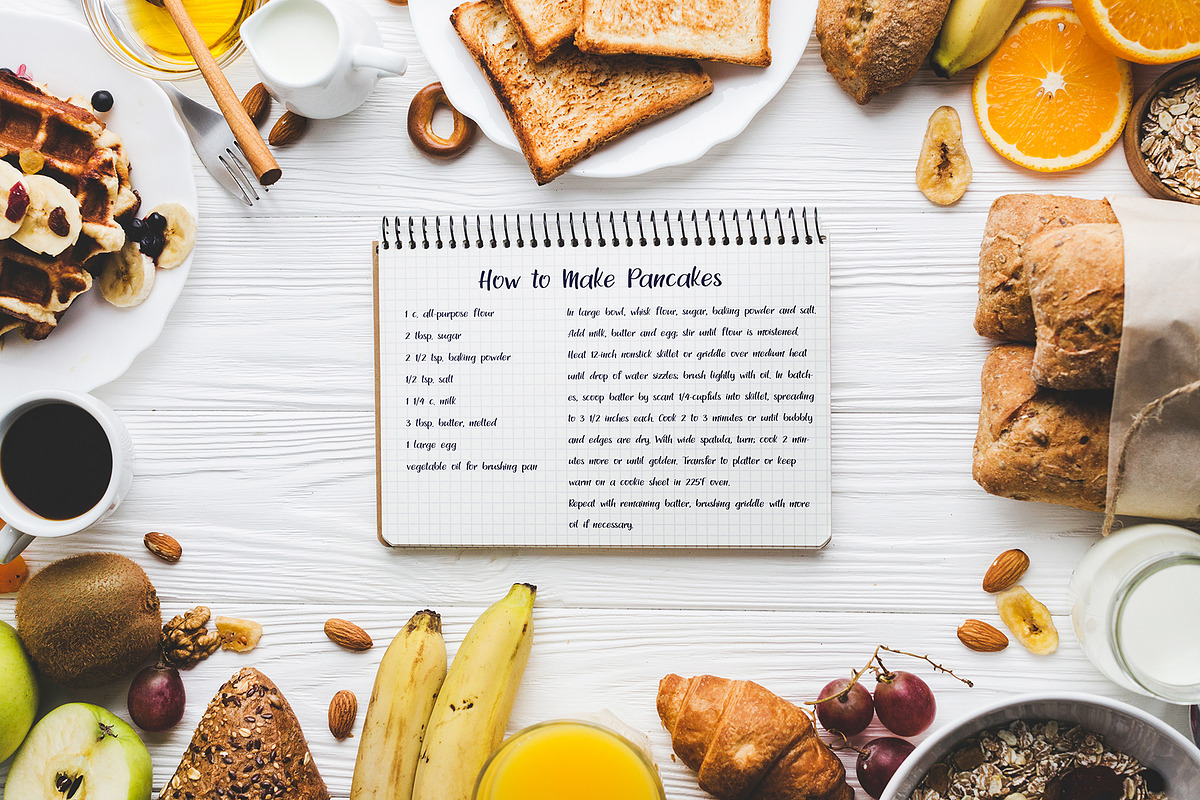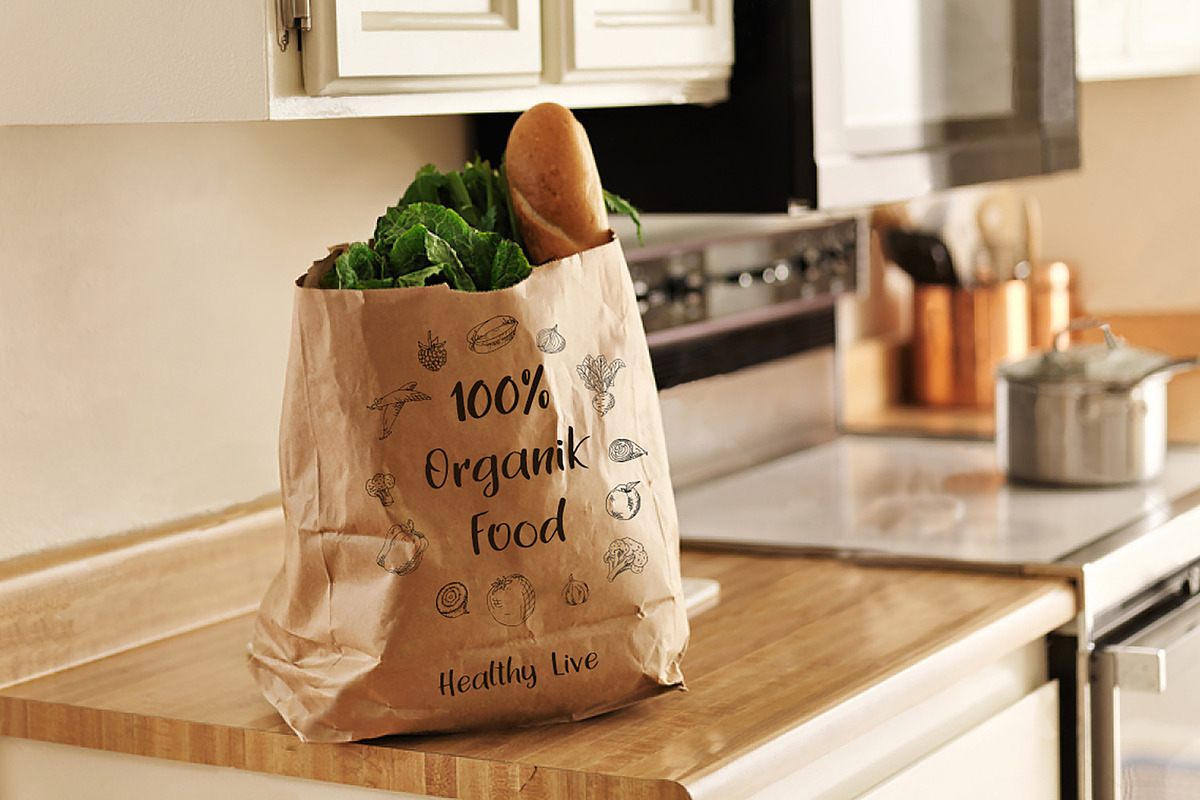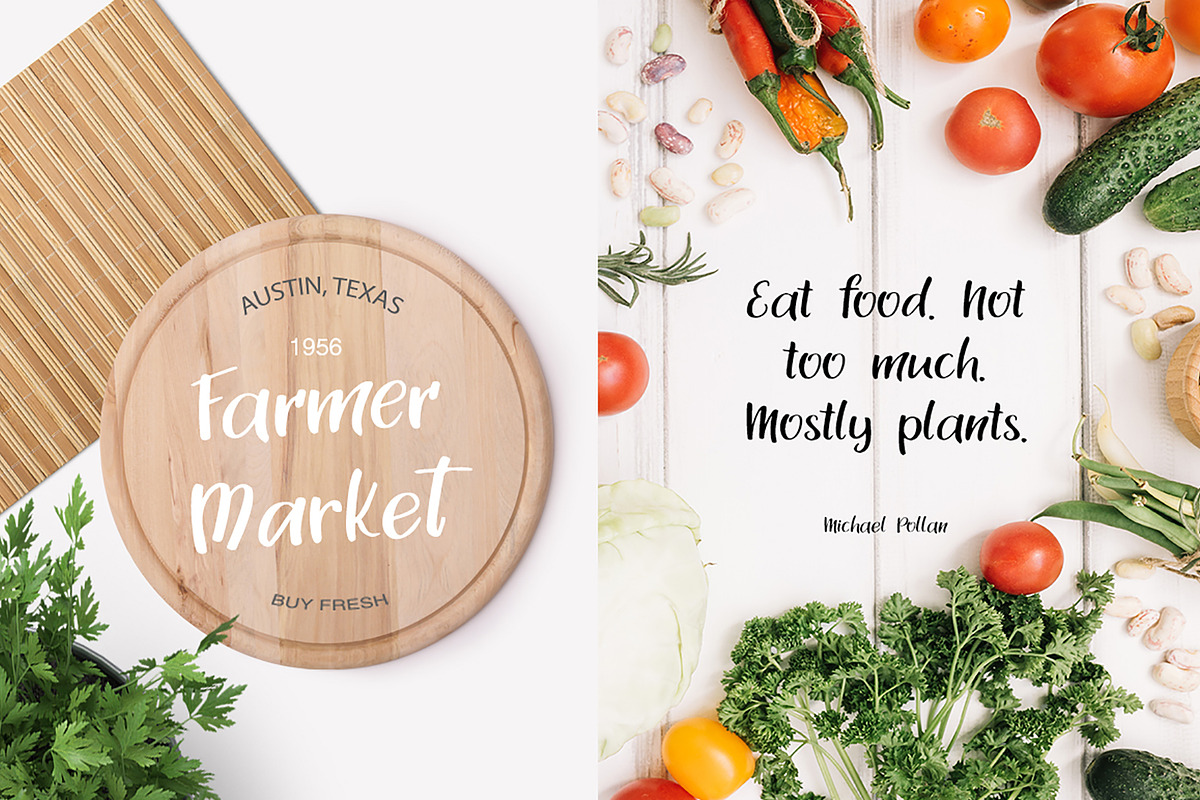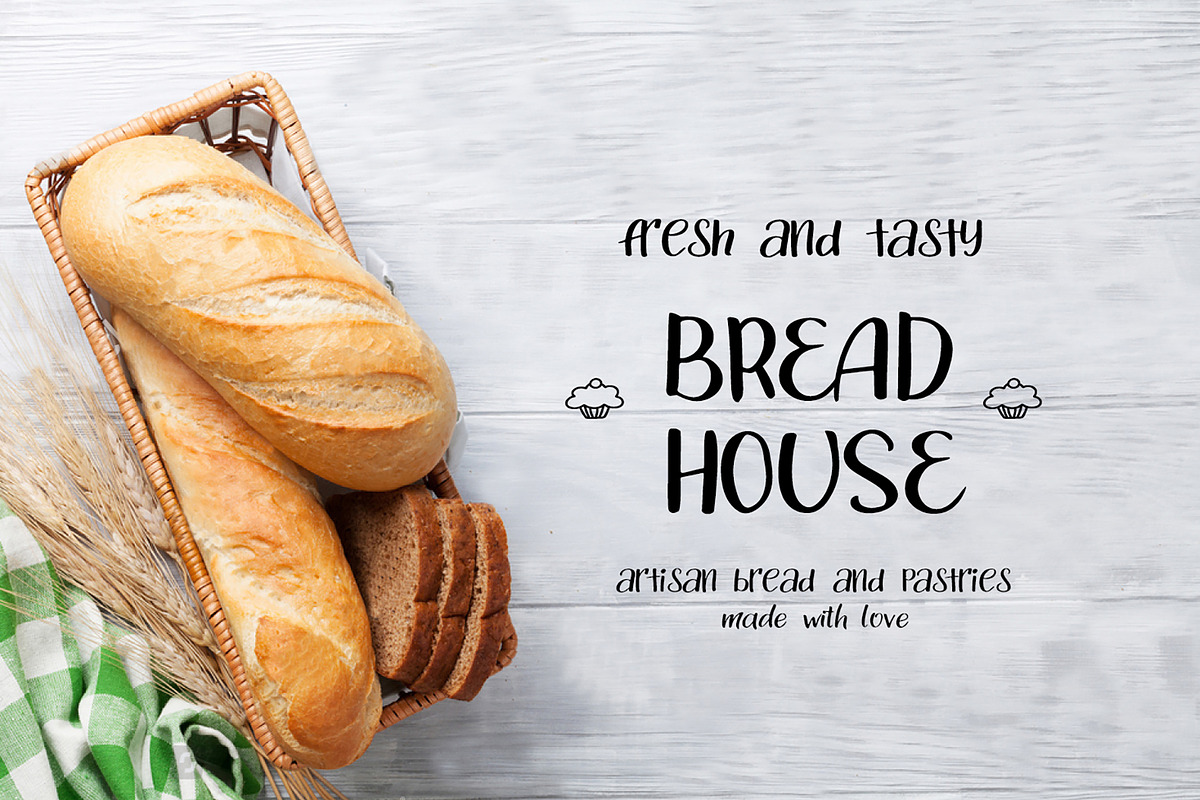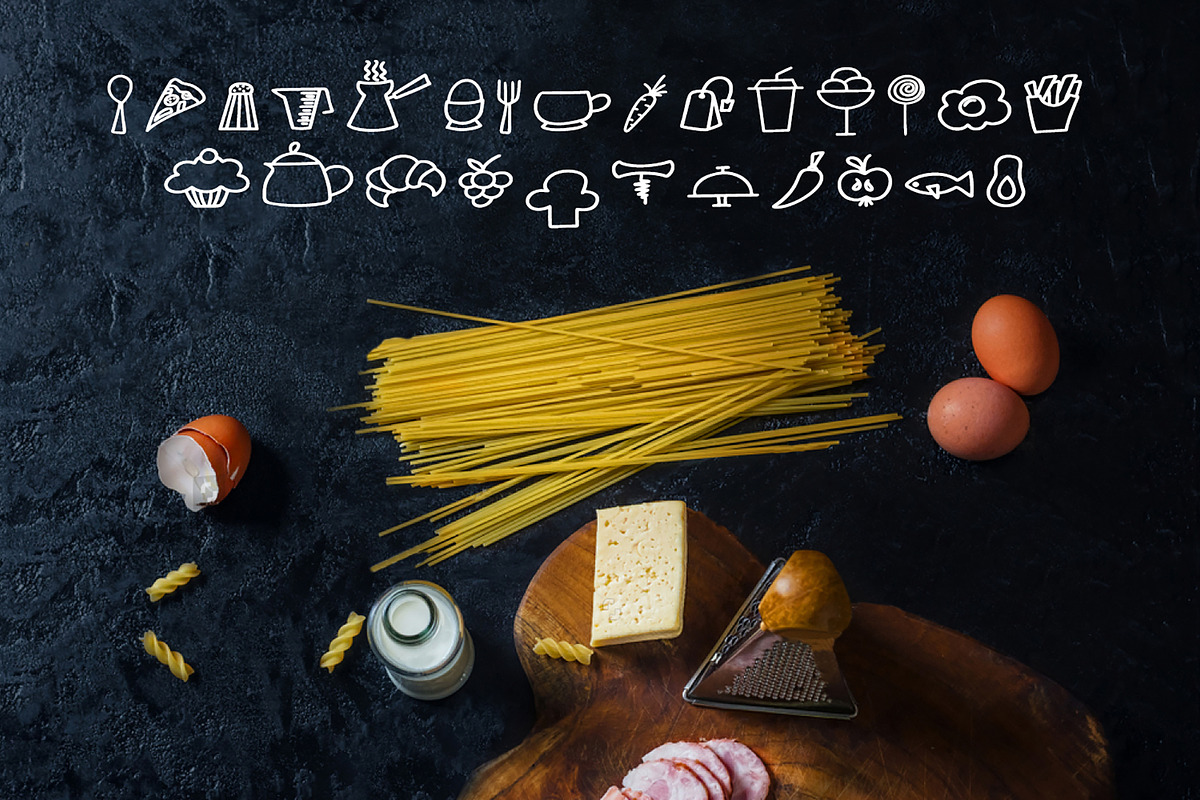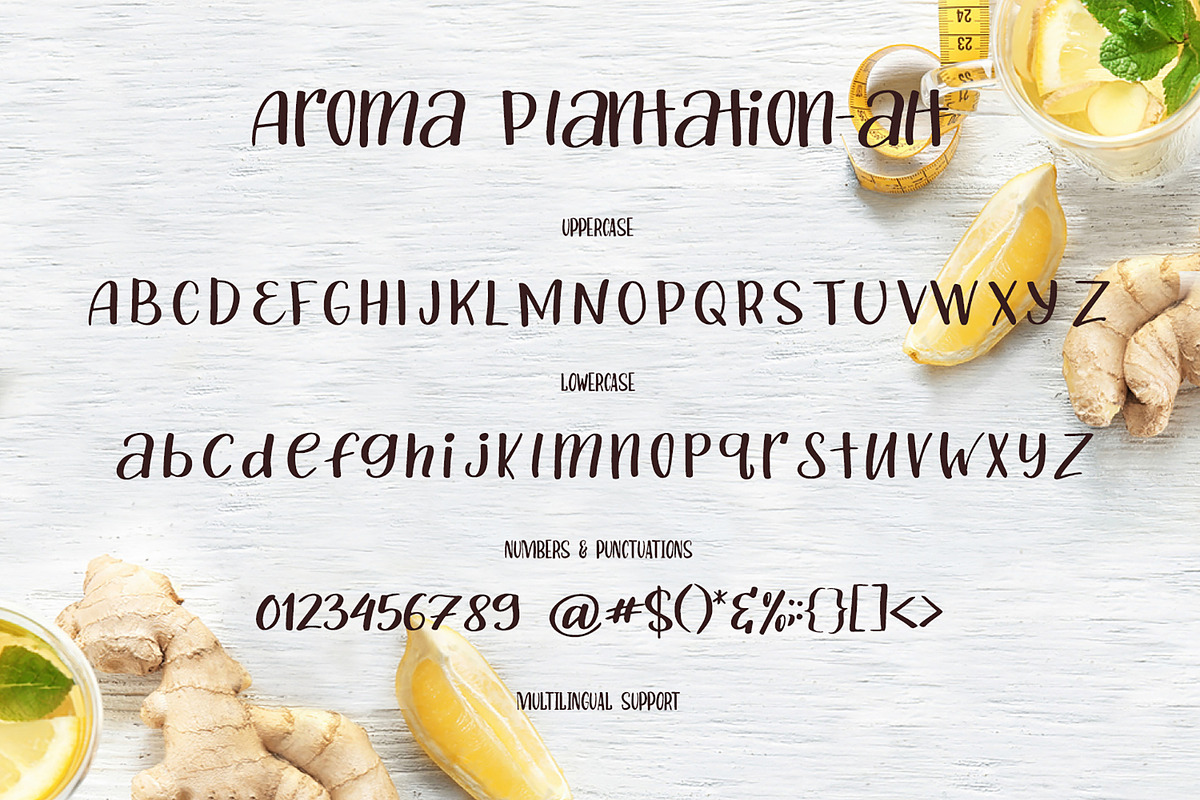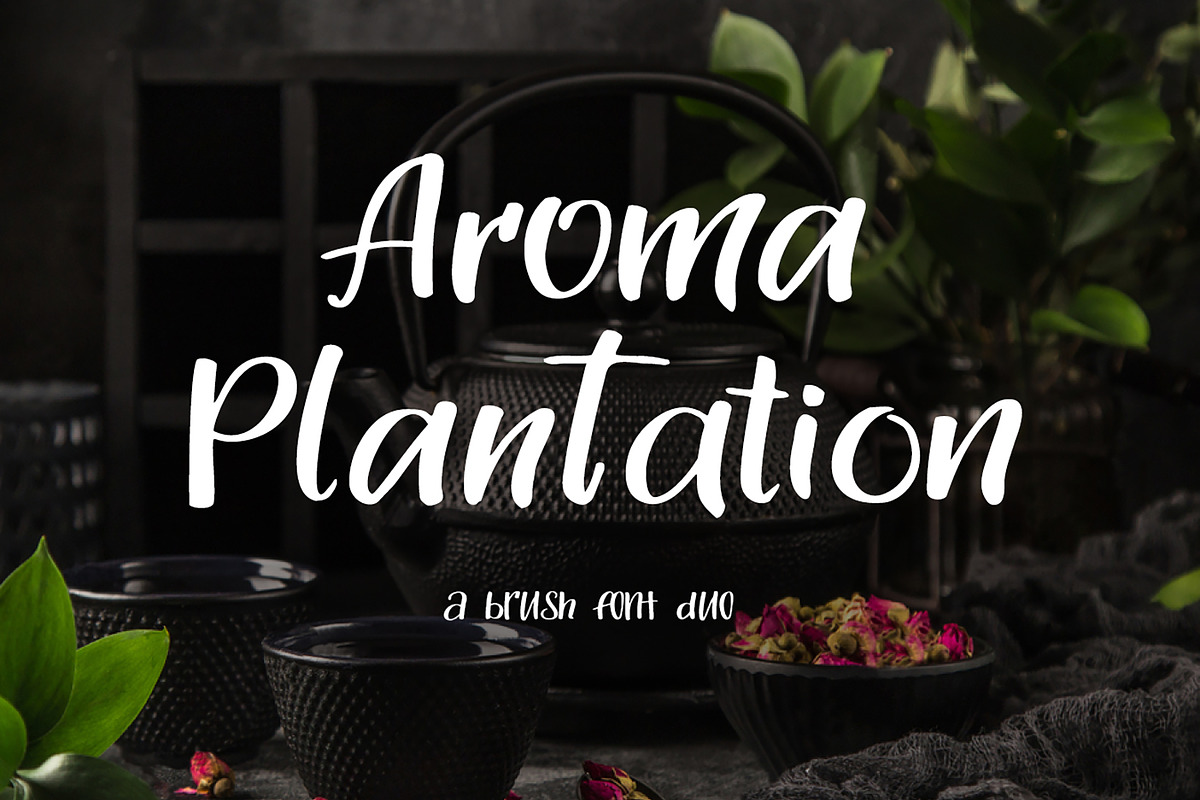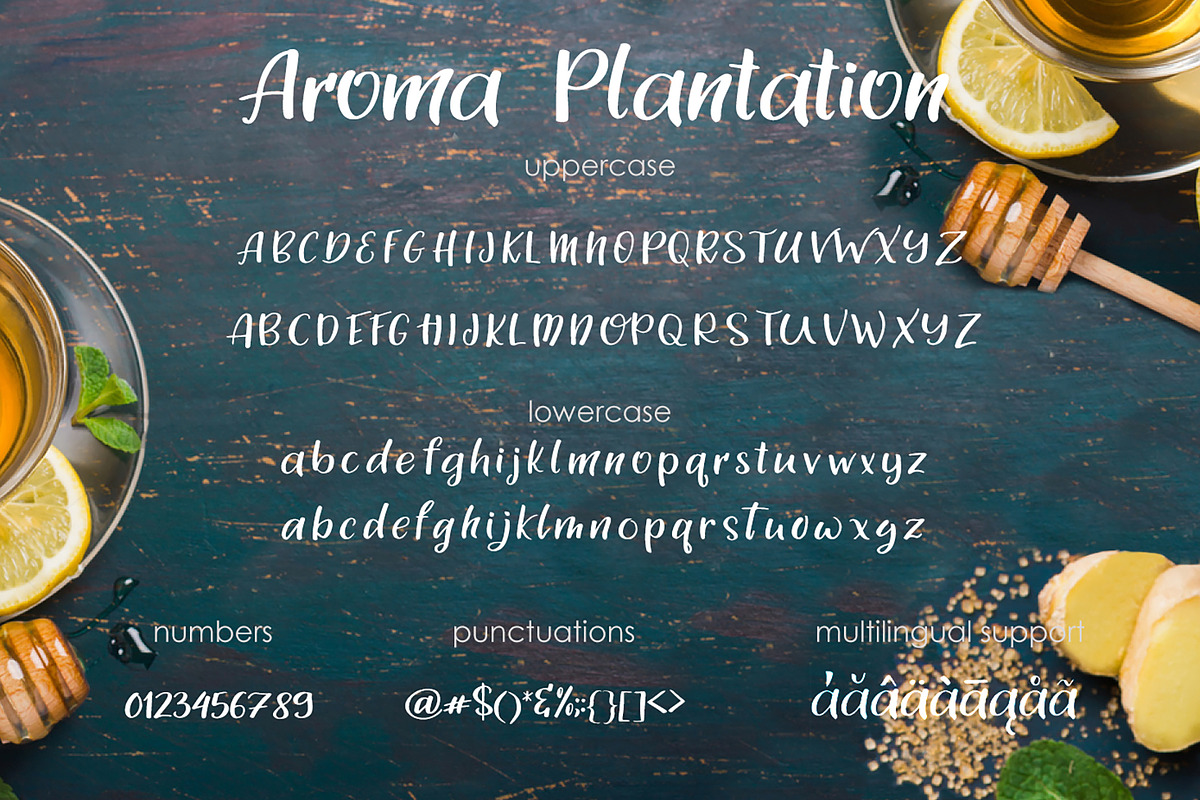
Aroma Plantation-font duo
Say hello to Aroma Plantation, script font duo!
Aroma Plantation is a fancy handlettering typeface with a clear style, good mood, and dramatic movement. It's allowing you to create beautiful hand-made typography in an instant.
Also ideit font, which consists of 26 characters about food. With these fonts, we can create a brand for your cafe or restaurant, or just decorate your website or blog about recipes.
Foreign Languages Support. Western European, Central, and South East European too.
Aroma Plantation Font come with PUA Unicode that gives you full access to the ligatures and alternates in software that doesn't support the extra characters.
Aroma Plantation - main font
Aroma Plantation-symbols